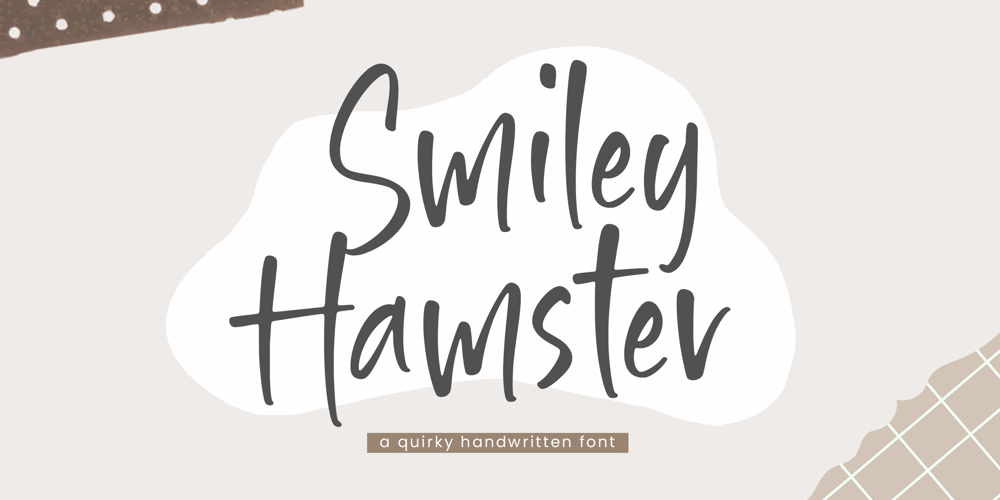
Smiley Hamster Font Family was designed by Wara Sigit Tri Pamungkas and published by Timurtype. Smiley Hamster contains 1 styles and family package options. Introducing by Timur typeProudly Present, Smiley Hamster A Handwritten FontSmiley Hamster is perfect for product packaging, branding project, megazine, social media, wedding, or just used to express words above the background.This Smiley Hamster font includes:-Full Set of standard alphabet and punctuation & symbol-Extra set Alternate ending lowercase-multilingual support.Embelish your designs with our original fonts.Enjoy the font, Thank you!